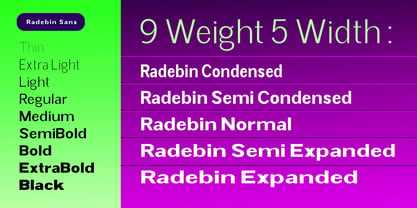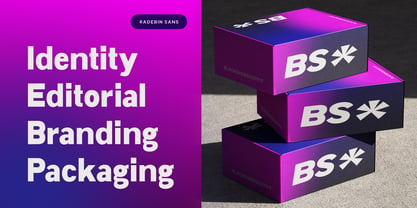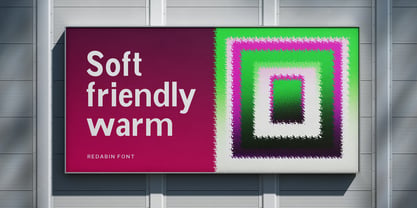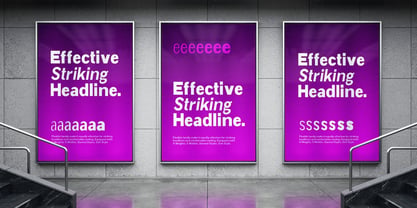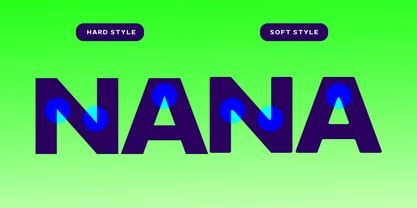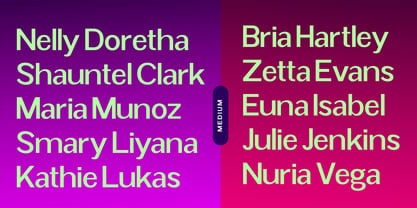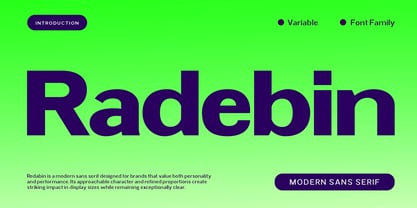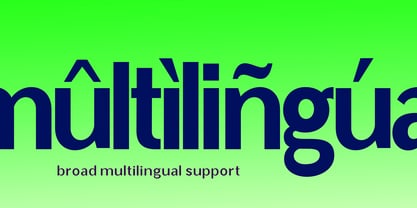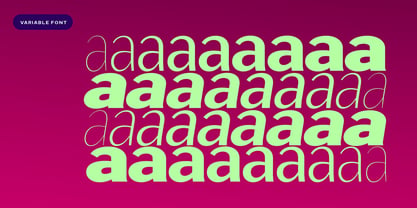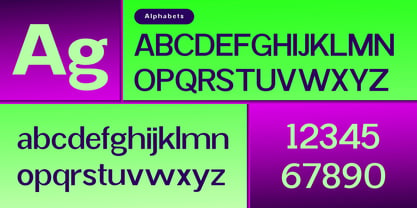
Radebin
par Ajibatype
La famille de polices Radebin a été conçue par Jamhur et publiée par Ajibatype. Radebin contient 51 styles et options de package familial. En savoir plus sur cette famille
Radebin is a modern sans serif designed for brands that value both personality and performance. Its approachable character and refined proportions create striking impact in display sizes while remaining exceptionally clear and comfortable for body text. With 9 weights, 5 widths, Slant styles, a dedicated Soft Style collection, extensive multilingual support, and a fully variable font, Redabin provides a complete typographic system for branding, editorial, packaging, digital interfaces, and everything in between.